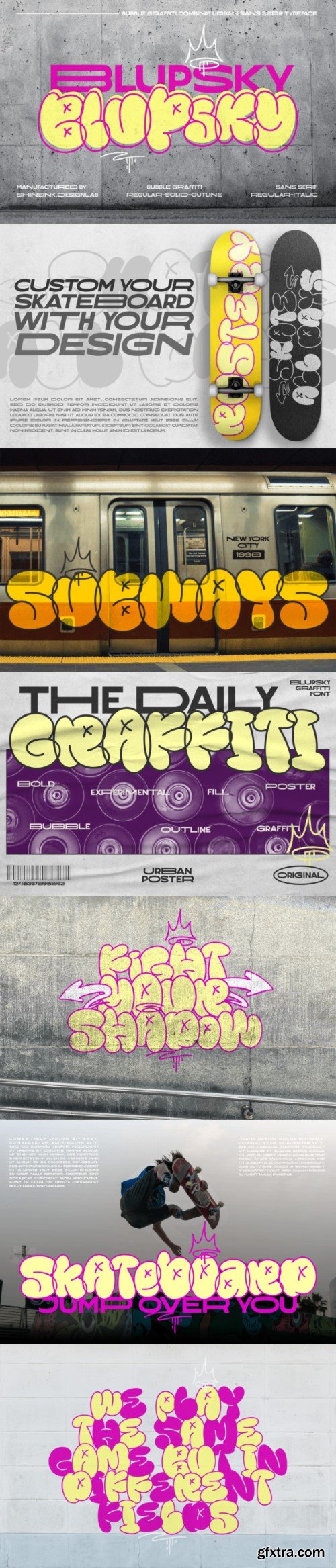
\Blueprint Font Family
Blupsky a dynamic font family that fuses the vibrant essence of bubble lettering, graffiti, urban street art, and skateboarding culture. This font collection seamlessly combines a sans-serif typeface with playful and eye-catching design elements, resulting in an effortlessly cool and highly legible combination. Blupsky, draws inspiration from the intricate letterforms found in graffiti art. Its rounded edges and exaggerated curves give each character a unique and captivating appearance, mimicking the fluidity and energy of spray-painted tags on city walls. The bold weight ensures excellent visibility, making it ideal for headlines, titles, and attention-grabbing text.